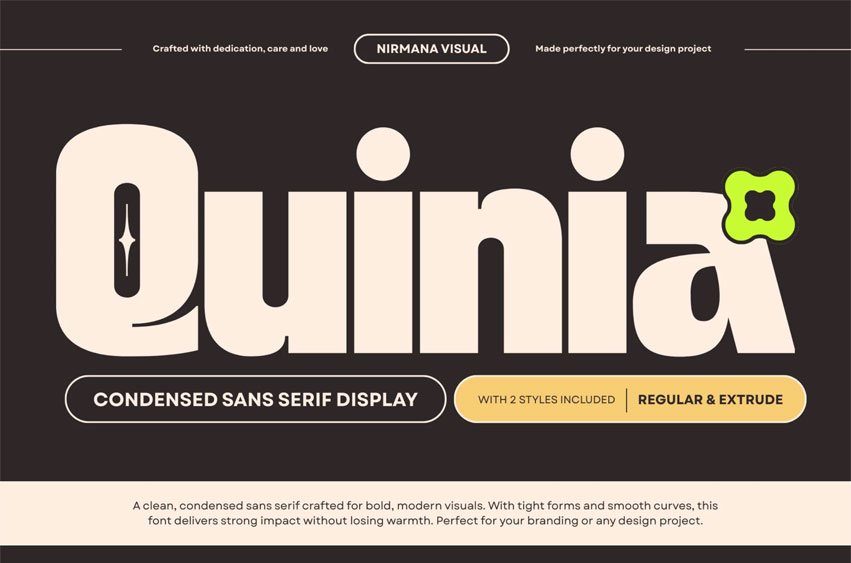
Quinia Font offers beautiful typographic harmony for a diversity of design projects, including logos & branding, social media posts, advertisements & product designs.
What you get : Two Font Styles Regular and Extrude